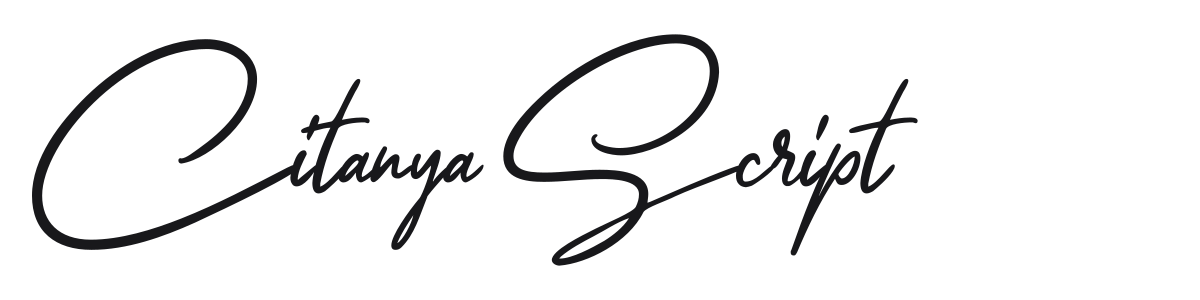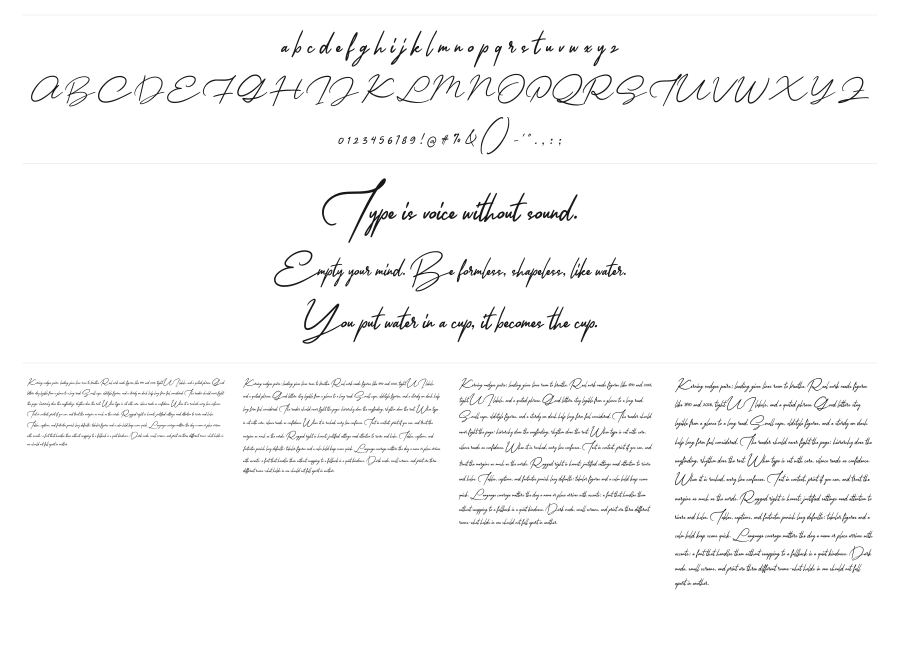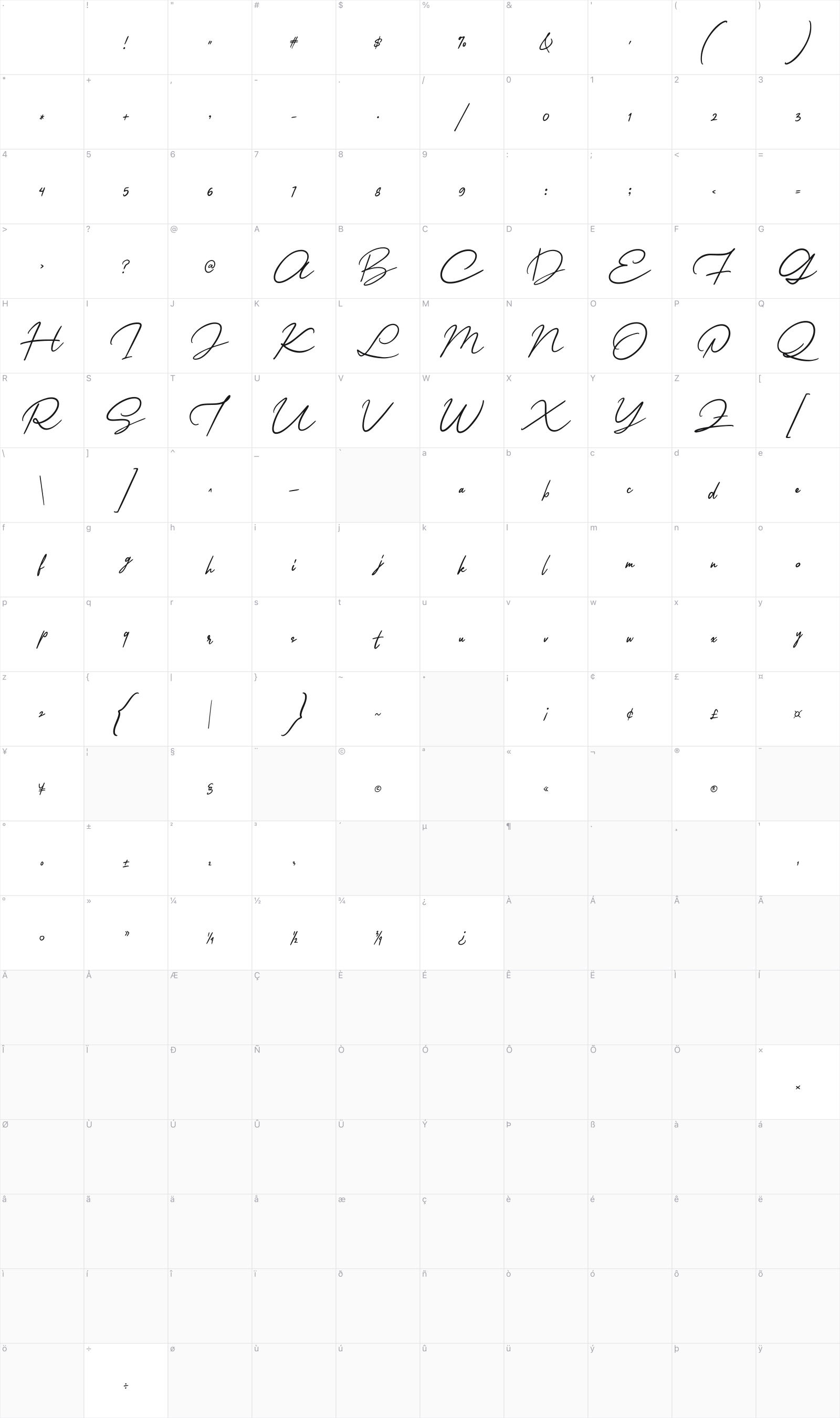
Citanya Script
Citanya Script is a casual connected script with the free-flowing feel of authentic pen handwriting. The letters move naturally across the baseline with smooth, unforced connections and a relaxed rhythm that avoids feeling mechanical. It brings warmth and personality to logos, packaging, and lifestyle branding.